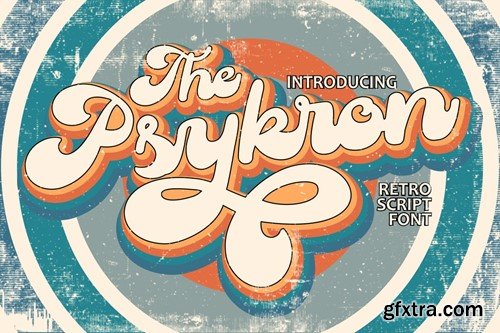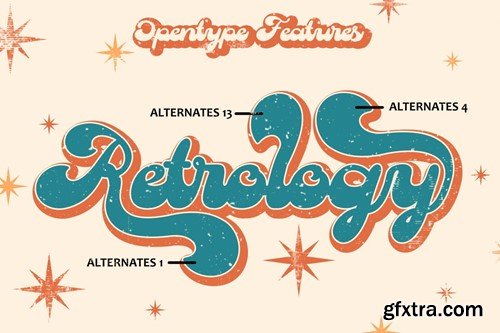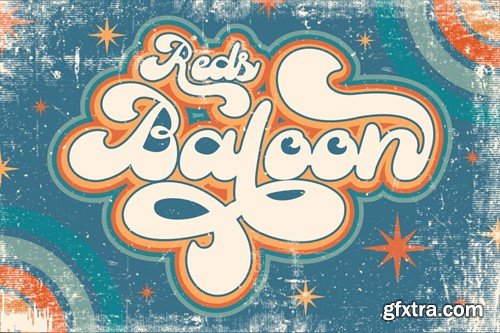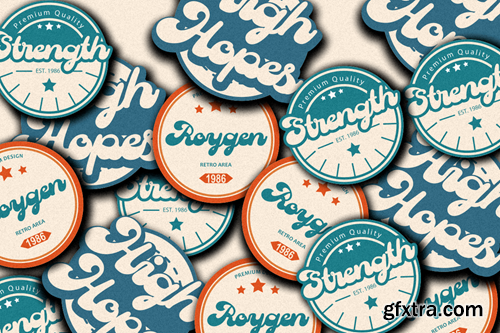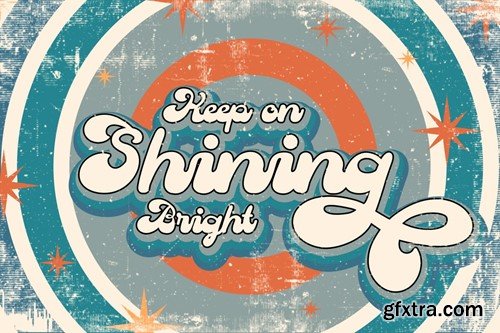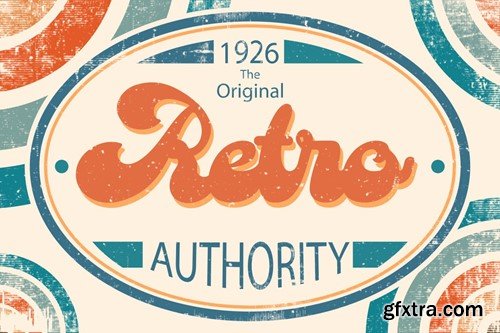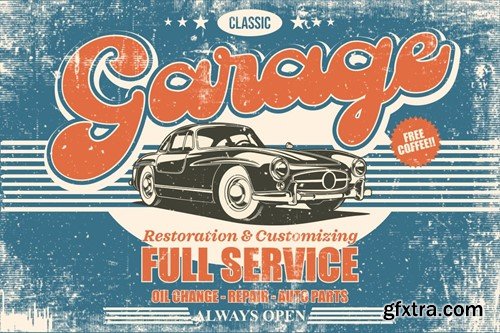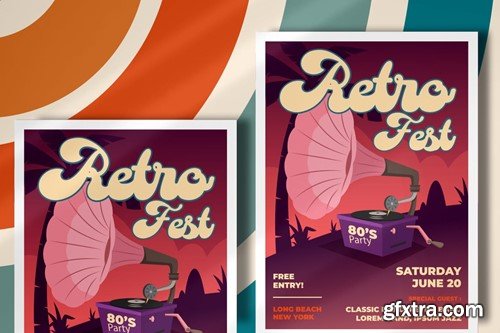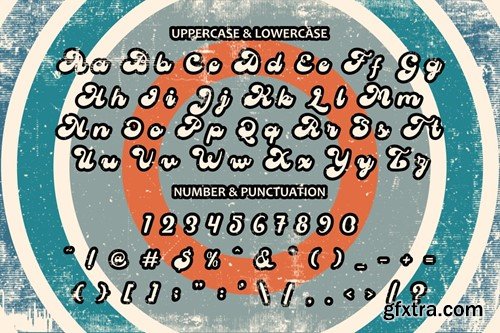
Psykron - Retro Script Font Psykron is more than just a font; it's a journey back in time to the groovy days of vintage design. This bold retro script font showcases a unique, tebaly groovy style that's bound to catch the eye and stir nostalgia. What truly sets Psykron apart is its captivatingly thick lower section, adding an extra layer of uniqueness to your designs and channeling a strong vintage and retro vibe. The font's characteristic groovy shapes and thick base transport you to an era when bold expressions dominated typography. Whether you're working on a logo, branding, invitations, packaging, posters, titles, business materials, greeting cards, magazine layouts, headlines, or any design project that calls for a touch of vintage retro charm, Psykron offers versatility that goes beyond conventional fonts. Explore an array of alternative characters with Psykron, allowing you to craft distinct and captivating visuals. Infuse your projects with the essence of a bygone era by embracing the retro flair that Psykron brings. In Package : Feature : Note : The preview mock-up, element, shadow, image or graphic stock is not included in the download file. It’s only for presentation purpose. Thank you